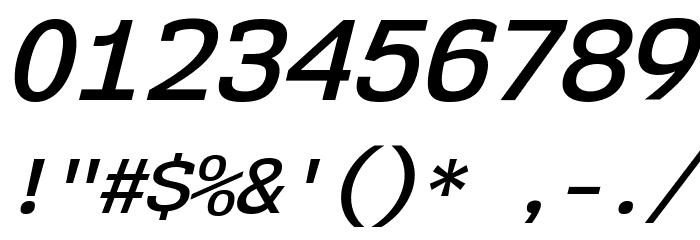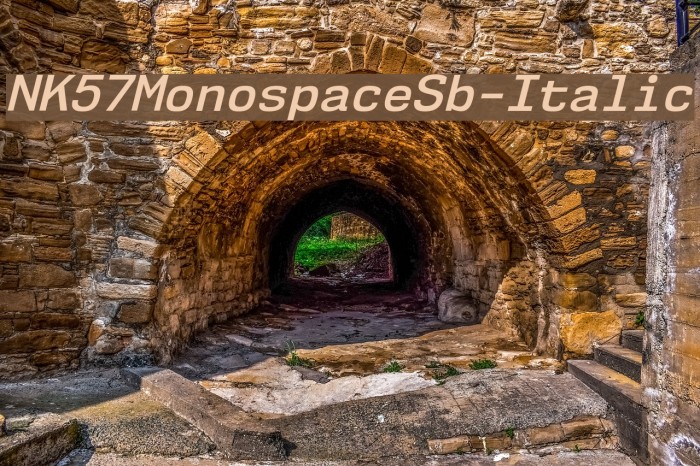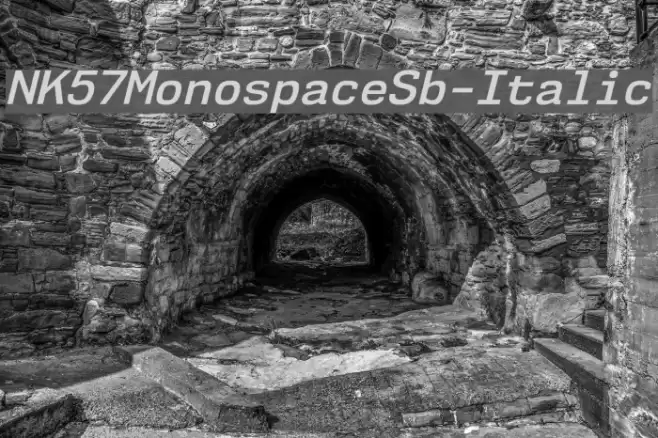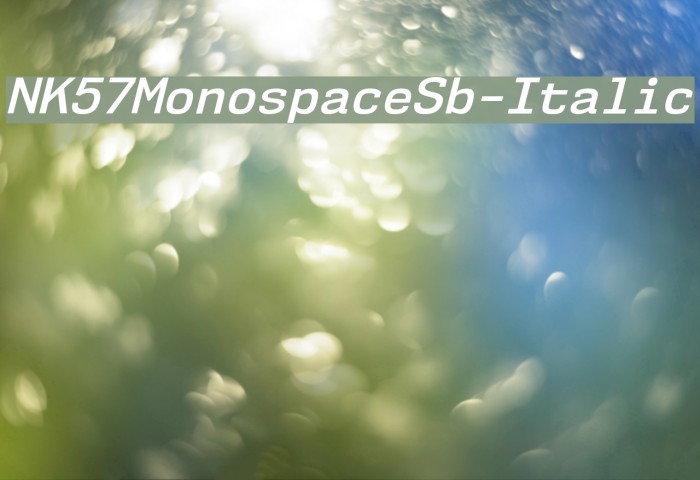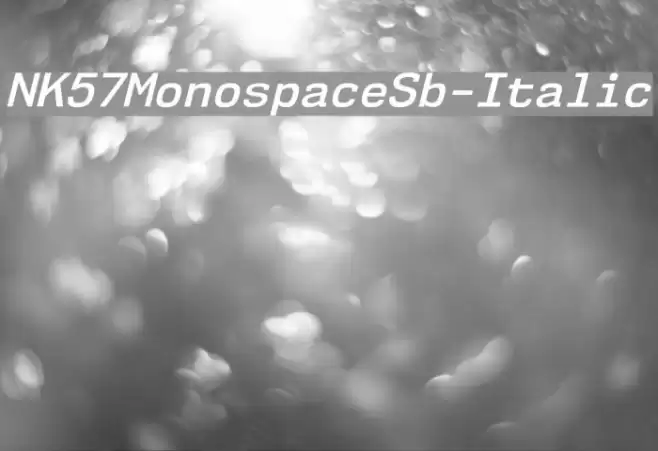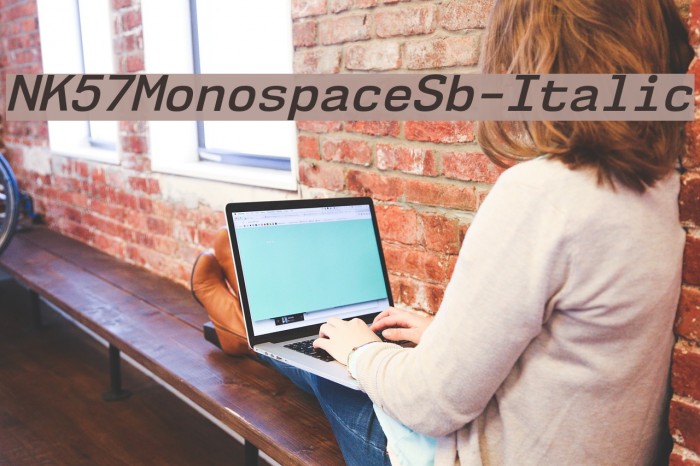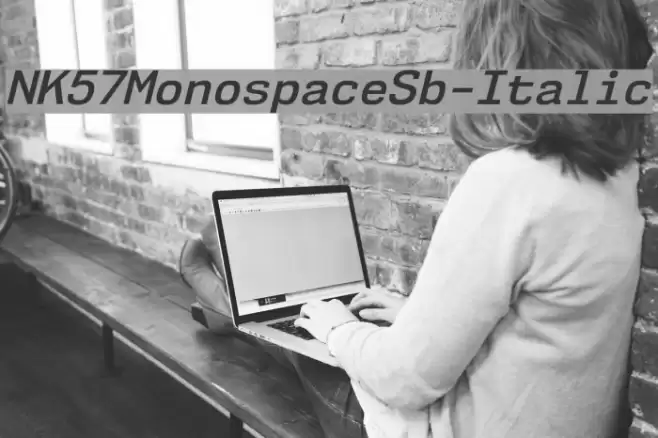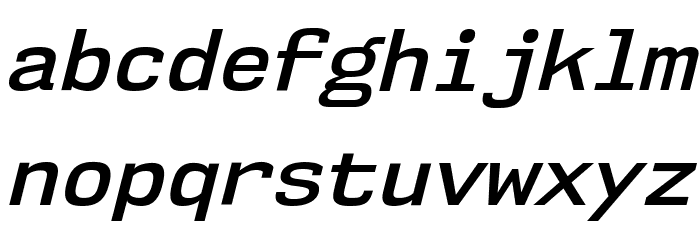
NK57MonospaceSb-Italic Font
NK57MonospaceSb-Italic Description
This font exhibits a clean, structured design with a monospaced style, ensuring each character occupies the same amount of horizontal space. The italicized form adds a dynamic slant, giving it a sense of motion and modernity. The characters are well-defined with a consistent stroke width, contributing to its readability. The uppercase and lowercase letters maintain a uniform height, enhancing its orderly appearance. The numerals and special characters are crafted with precision, aligning seamlessly with the overall aesthetic. This font's simplicity and clarity make it suitable for various applications.
| Use Case | Coding, Technical documentation, Design projects |
| Proposed Projects | Ideal for coding environments, technical documentation, and design projects requiring a modern, structured look. |